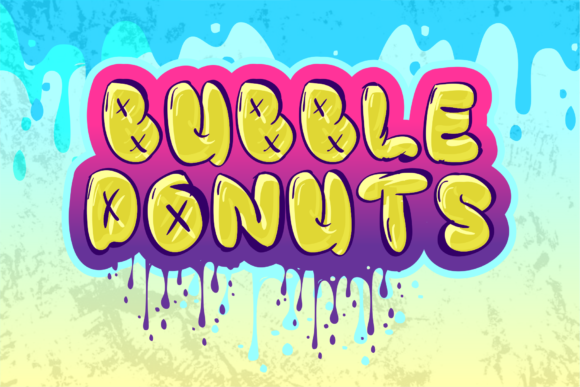
Bubble Donuts Font: Elevate Your Crafting Ideas with a Cool and Graffiti-Styled Display Font
The world of crafting and design is constantly evolving, with new trends and styles emerging every day. As a designer or crafter, you’re always on the lookout for fresh and exciting ways to make your projects stand out. That’s where the Bubble Donuts font comes in – a cool and graffiti-styled display font that’s sure to elevate your crafting ideas and take them to the next level.
What is Bubble Donuts Font?
Bubble Donuts font is a unique and stylish display font that’s inspired by the playful and carefree world of graffiti. With its bold and bubbly letters, this font is perfect for adding a touch of personality and whimsy to your crafting projects. Whether you’re working on a card, label, or branding project, Bubble Donuts font is sure to make a statement.
Features and Benefits of Bubble Donuts Font
So, what makes Bubble Donuts font so special? Here are just a few of its key features and benefits:
- Graffiti-inspired style: Bubble Donuts font has a fun and playful vibe that’s perfect for adding a touch of street art style to your projects.
- Bold and eye-catching: With its bold and bubbly letters, this font is sure to grab attention and make your projects stand out.
- Versatile: Bubble Donuts font can be used for a wide range of crafting ideas, from cards and labels to branding and more.
10 Crafting Ideas to Try with Bubble Donuts Font
Now that you know a little bit more about Bubble Donuts font, let’s talk about some crafting ideas you can try with this amazing font. Here are 10 projects to get you started:
- Custom cards: Add a personal touch to your greeting cards with Bubble Donuts font.
- Branding and packaging: Use this font to create eye-catching labels and packaging for your products.
- Party decorations: Create custom banners and signs with Bubble Donuts font to add a touch of personality to your parties and events.
- DIY jewelry: Use this font to create custom labels and tags for your handmade jewelry.
- Paper crafting: Add a touch of whimsy to your paper crafting projects with Bubble Donuts font.
- Sign making: Create custom signs with this font to add a personal touch to your home or office.
- Gift tags: Use Bubble Donuts font to create custom gift tags that will make your presents stand out.
- Iron-on designs: Create custom iron-on designs with this font to add a touch of personality to your t-shirts and hoodies.
- Stationery: Use Bubble Donuts font to create custom stationery and notebooks.
- Wall art: Create custom wall art with this font to add a touch of personality to your home or office.
Tips and Tricks for Using Bubble Donuts Font
Now that you have some ideas for projects to try with Bubble Donuts font, here are a few tips and tricks to keep in mind:
- Experiment with colors: Don’t be afraid to try out different colors and color combinations with Bubble Donuts font.
- Play with sizes: Experiment with different font sizes to create visual interest and hierarchy in your designs.
- Combine with other fonts: Try pairing Bubble Donuts font with other fonts to create a unique and interesting look.
- Use it sparingly: While Bubble Donuts font is bold and eye-catching, it can also be overwhelming if used too much. Use it sparingly to create a focal point in your designs.
In conclusion, Bubble Donuts font is a cool and graffiti-styled display font that’s perfect for adding a touch of personality and whimsy to your crafting projects. With its bold and bubbly letters, this font is sure to make a statement and take your designs to the next level. Whether you’re a designer or crafter, Bubble Donuts font is a great addition to your toolkit.